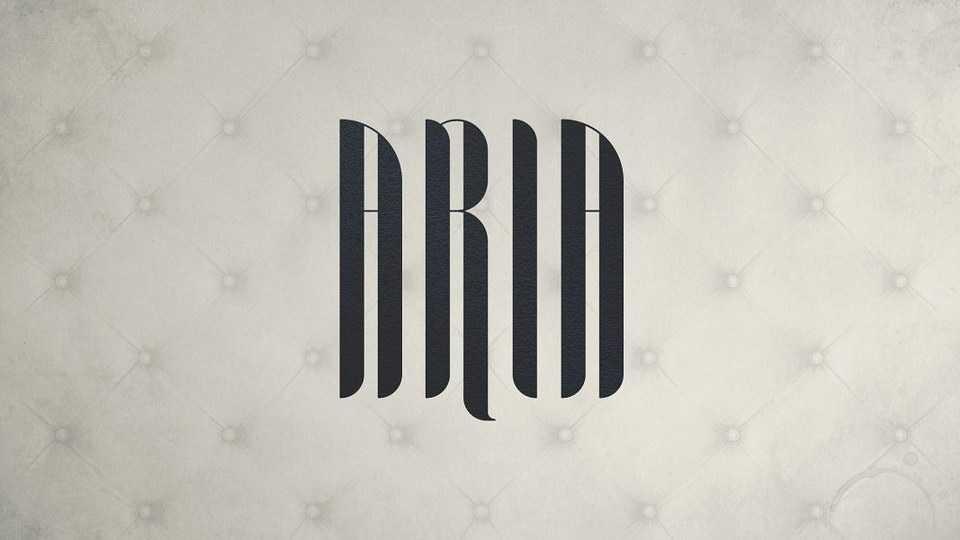
Download Aria font, a tall modular display typeface. Aria is great for branding projects, home-ware designs, product packaging, magazine headers – or simply as a stylish text overlay to any background image.